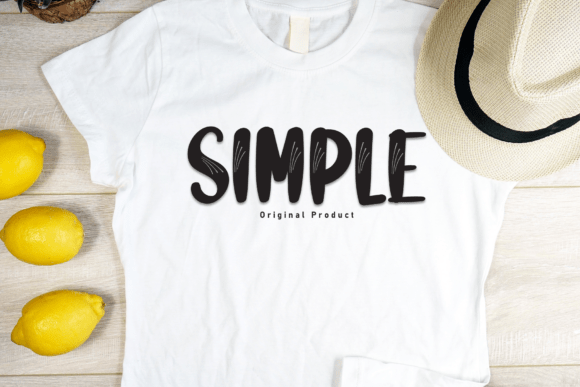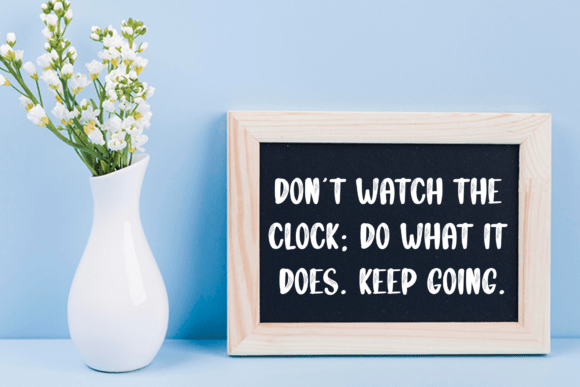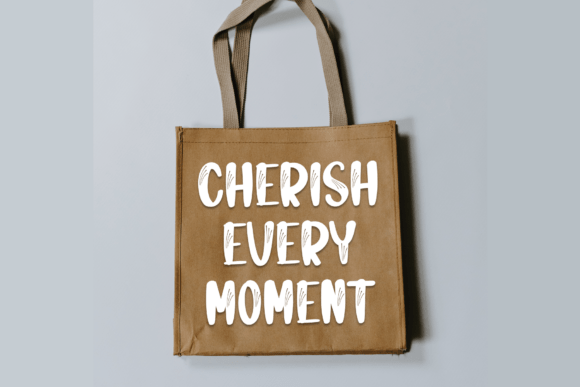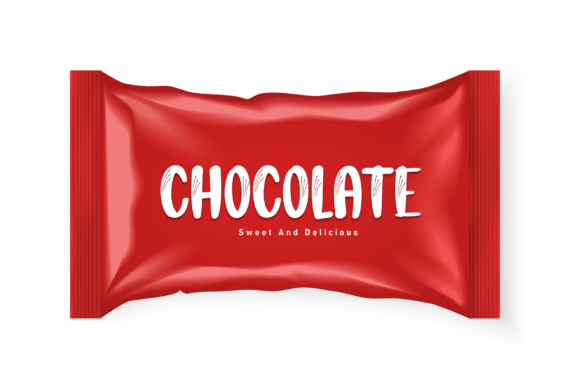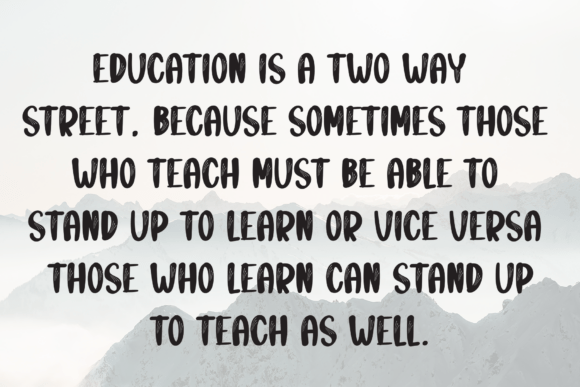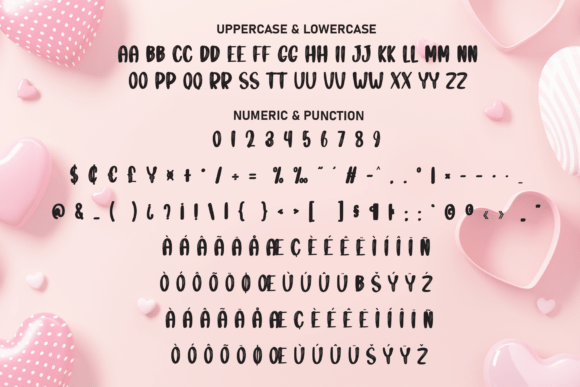
Happy Valentine Font: The Perfect Choice for Your Romantic Designs
Are you looking for a font that exudes love, joy, and playfulness? Look no further than the Happy Valentine Font, a charming and affectionate handcrafted display font that effortlessly blends sophistication and jubilation. This delightful typeface is perfect for designers and crafters seeking to add a touch of whimsy and romance to their creative projects.
A Whimsical Character that Steals the Show
The Happy Valentine Font boasts a unique and captivating character that makes it stand out from the rest. Its handcrafted design ensures that each letter is carefully crafted to convey a sense of fun and playfulness, making it an ideal choice for wedding invitations, heartfelt cards, and other designs that require a touch of personality. Whether you’re creating a romantic dinner invitation or a Valentine’s Day card, this font is sure to bring a smile to the recipient’s face.
Perfect for Wedding Invitations and More
Wedding invitations are a great way to showcase the Happy Valentine Font’s unique charm. The font’s elegant yet playful design makes it perfect for couples looking to add a touch of whimsy to their special day. But it’s not just limited to wedding invitations – this font is also great for:
- Valentine’s Day cards and gifts
- Anniversary celebrations
- Birthday parties and baby showers
- Any design that requires a touch of romance and playfulness
Key Features of the Happy Valentine Font
The Happy Valentine Font comes with a range of features that make it a versatile and practical choice for designers and crafters. Some of its key features include:
- Handcrafted design with unique character
- Delightful and pleasant appeal
- Perfect for wedding invitations, cards, and other romantic designs
- Supports multiple languages
- Easy to use and integrate into your designs
Tips for Using the Happy Valentine Font
To get the most out of the Happy Valentine Font, here are some tips to keep in mind:
- Use it for headlines and titles to add a touch of whimsy and personality
- Pair it with other fonts to create a unique and eye-catching design
- Use it consistently throughout your design to create a cohesive look
Why Choose the Happy Valentine Font?
With so many fonts available, why choose the Happy Valentine Font? Here are just a few reasons:
- Unique and captivating character that sets it apart from other fonts
- Handcrafted design ensures a personal touch
- Perfect for a range of designs, from wedding invitations to birthday parties
- Easy to use and integrate into your designs